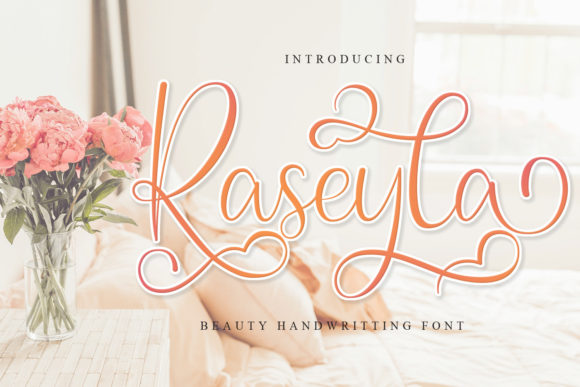
Raseyla Font
Prepare to embark on a typographic adventure with Raseyla Font: where romance meets script, and every character dances gracefully upon the visual stage. Step into a world of enchantment and discovery as you explore the curves, swirls, and flourishes that define this masterpiece.
Raseyla's enchanting essence is crafted with love for the bustling streets of New York, capturing the city's vibrant energy and passion. Each stroke whispers a tale of urban romance, inviting you to express your deepest emotions through designs that radiate with stylish charm.
Unleash your creativity with the boundless possibilities that await. Raseyla bestows upon you an array of breathtaking ligatures and glyphs, effortlessly accessible through PUA encoding. Embrace the power to craft designs that ignite imaginations, ignite hearts, and leave an indelible mark upon the digital landscape.
With Raseyla, your designs will not merely exist—they will dance across the screen, captivating all who lay eyes upon them. It's the perfect font for adding a touch of luxury and sophistication to any project, whether you're creating wedding invitations, branding materials, or simply expressing your artistic flair.
So why wait? Immerse yourself in the world of Raseyla Font today and let your creativity soar to new heights. Each character holds the power to transform your words into works of art, leaving a lasting impression that whispers of passion, elegance, and undeniable charm.